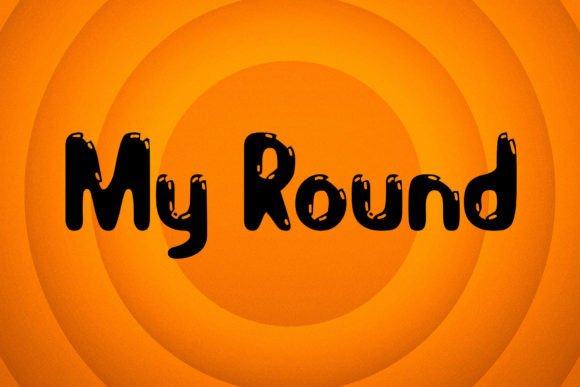
My Round: A Playful and Authentic Font for Creative Projects
If you're working on a design that needs to feel cheerful, engaging, and full of life, you might want to give My Round a try. This fun and bubbly display font brings a sense of warmth and playfulness to any project, making it ideal for those who want to connect with their audience in a more personal and vibrant way. Whether you're designing for kids, creating social media content, or just looking for something that stands out, My Round can be the perfect fit.
What Is My Round?
My Round is a display typeface known for its chunky, rounded letters and lively personality. It doesn't aim to be formal or traditional — instead, it leans into a more whimsical and approachable style. The font’s character set includes both uppercase and lowercase letters, along with numbers and symbols, all designed to maintain consistency while adding charm and visual interest.
Unlike standard fonts used for body text, display fonts like My Round are best suited for headlines, logos, posters, and other eye-catching elements. Its boldness makes it easy to read at a glance, and the soft curves evoke a sense of friendliness and creativity. This balance between readability and aesthetic appeal is what sets My Round apart from many other display fonts.
Why Choose My Round for Children's Activities?
When it comes to children's activities, the right font can make all the difference. Kids respond to visuals that are colorful, playful, and inviting. That’s where My Round shines. Its rounded edges and bouncy look create a welcoming vibe that instantly appeals to young eyes.
- Classroom Posters: Teachers often need materials that grab attention and keep students engaged. My Round can be used for titles on science fair projects, storyboards, or classroom rules. For example, a poster titled “Let’s Explore the Solar System!” in My Round will pop off the board and spark curiosity.
- Crafts and Handouts: From coloring pages to activity sheets, using My Round adds an element of fun. A simple word search becomes more exciting when the title is styled with this lively font.
- Birthday Invites and Party Decor: If you're planning a child’s birthday party, My Round is a great choice for invitations, banners, and signage. It conveys joy and celebration effortlessly.
Real-World Uses Beyond the Classroom
While My Round is excellent for educational settings, it also has a wide range of applications in creative and professional fields. Here are some scenarios where it could elevate your designs:
For Bloggers and Content Creators
Bloggers who focus on lifestyle, parenting, or creative hobbies often use fonts that reflect their brand’s tone. My Round fits well in this space because it feels authentic and personable. You could use it in blog headers, YouTube thumbnails, or Instagram stories to add a friendly touch without compromising clarity.
Imagine a food blogger using My Round for the heading of a post about baking with kids. The font helps communicate that the content is not only informative but also enjoyable and hands-on.
Marketing and Branding for Family-Friendly Businesses
Businesses targeting families, such as toy stores, nurseries, or kid-friendly restaurants, can benefit from using My Round in their branding. The font naturally aligns with the values these businesses promote — fun, safety, and community.
- It works well for logo designs, especially if the business wants to appear warm and welcoming.
- You can use it for promotional banners or event flyers, like summer camps or weekend workshops.
- Menu items at family restaurants become more appealing when presented in a playful yet readable font like My Round.
Freelancers and Designers Seeking a Unique Touch
Freelancers in graphic design or illustration know how important it is to stand out. My Round offers a unique visual identity that can differentiate your work from others. Use it in greeting cards, book covers, or custom illustrations for clients who want something unconventional but still professional-looking.
For instance, a freelance illustrator designing a children's book cover might pair My Round with hand-drawn elements to create a cohesive theme that feels both artistic and accessible.
How Educators Can Integrate My Round Into Their Work
Teachers and educators often have to juggle formality and engagement. While most instructional materials require clean, sans-serif fonts for legibility, there are moments when a display font like My Round can help break up monotony and make learning more interactive.
- Project Titles: Encourage student creativity by letting them choose a fun font for their presentations. My Round can be used for the title slide of a school project or science experiment.
- Themed Lessons: When teaching a unit on animals, seasons, or fairy tales, incorporating My Round into lesson plans or slides can enhance the thematic experience.
So whether you're crafting a lesson plan, designing a logo, or just trying to add a little flair to your next project, consider how My Round might bring that extra spark. It’s not just about looking good; it’s about connecting better.